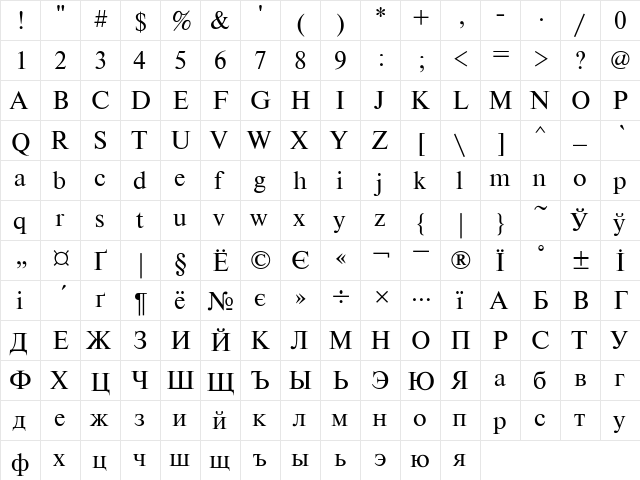
TimesET Regular Font Preview
TimesET Regular
TimesET Regular Font Details
Design Context for TimesET Typeface
TimesET is a composed and adaptable typeface that performs quietly and consistently across a wide range of design contexts.